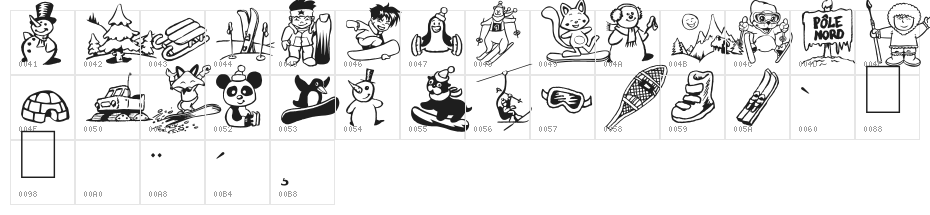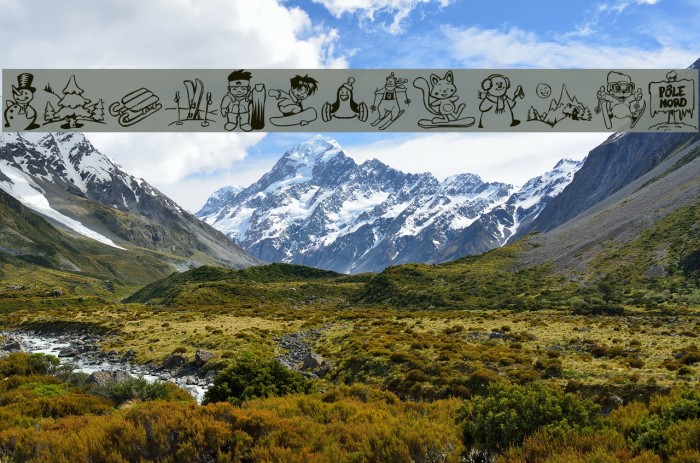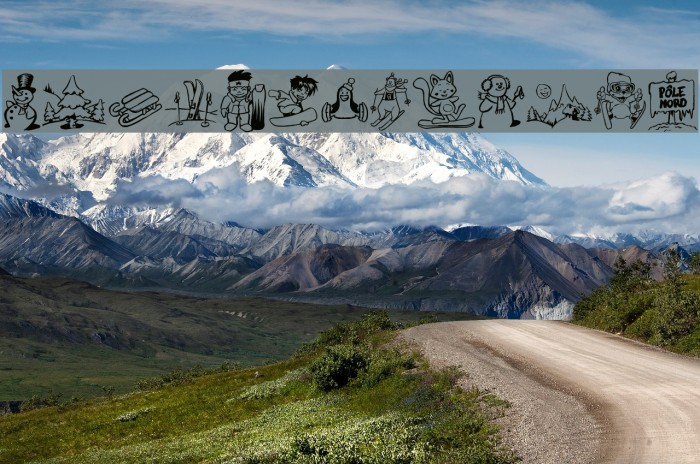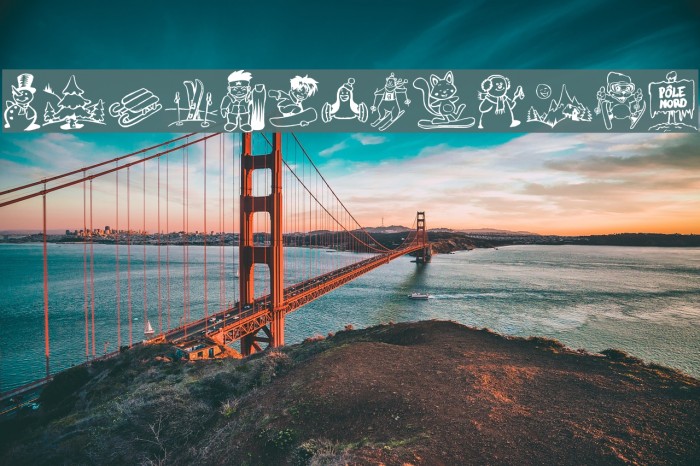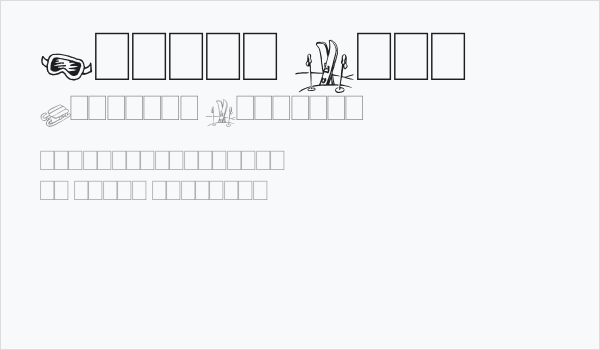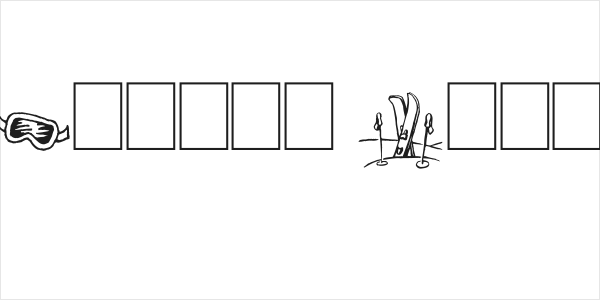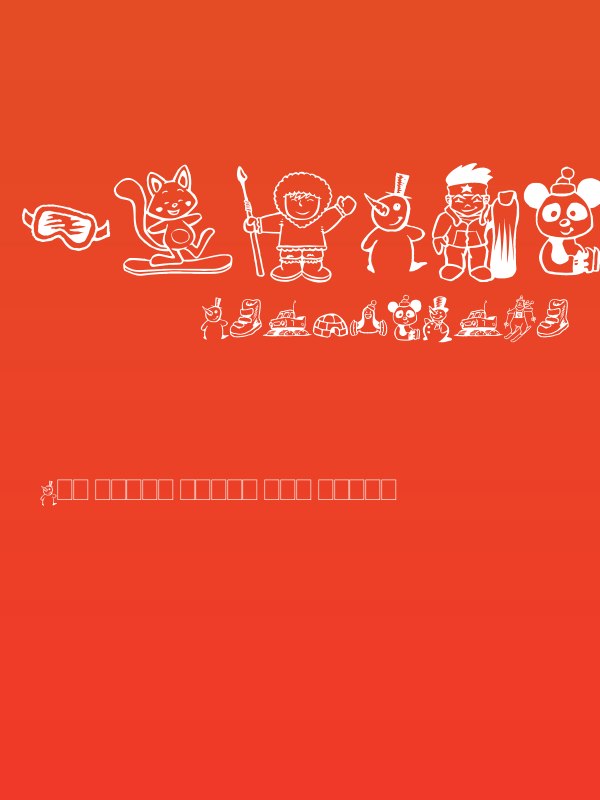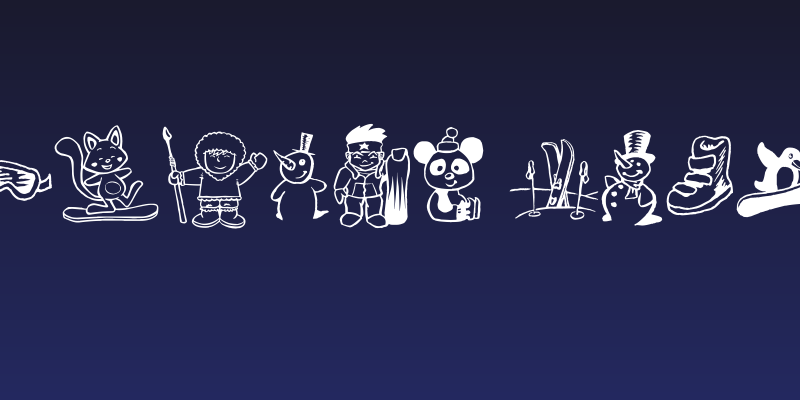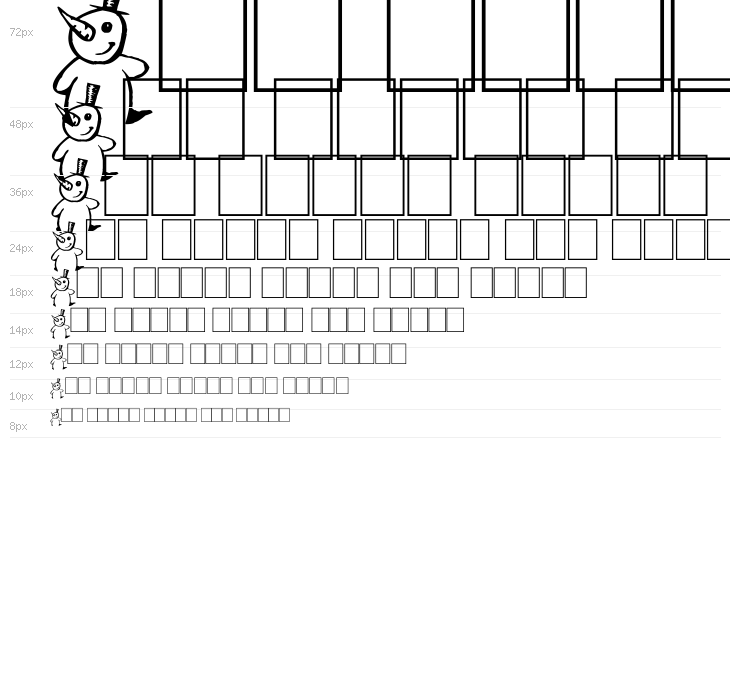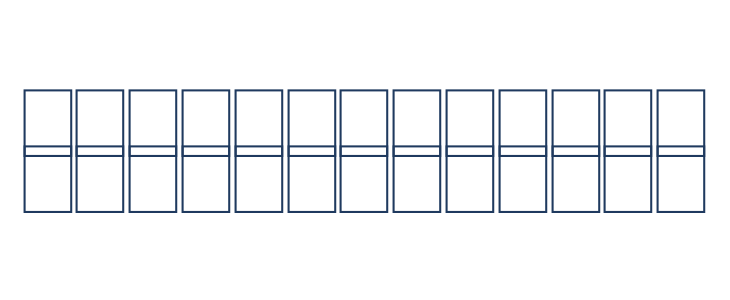
Winter Days Font
Winter Days Description
This is a playful and whimsical decorative font featuring a variety of winter-themed illustrations. Each character is represented by a unique drawing, including snowmen, skiers, penguins, and other winter activities and elements. The style is cartoonish and fun, making it ideal for projects that require a lighthearted and festive touch. The characters are detailed and expressive, capturing the essence of winter joy and adventure. This font is perfect for holiday cards, children's books, and any design that aims to evoke the magic of winter.
| Use Case | Logos, Headlines, Decorative elements |
| Proposed Projects | Ideal for holiday cards, children's books, winter festival posters, and festive event invitations. |